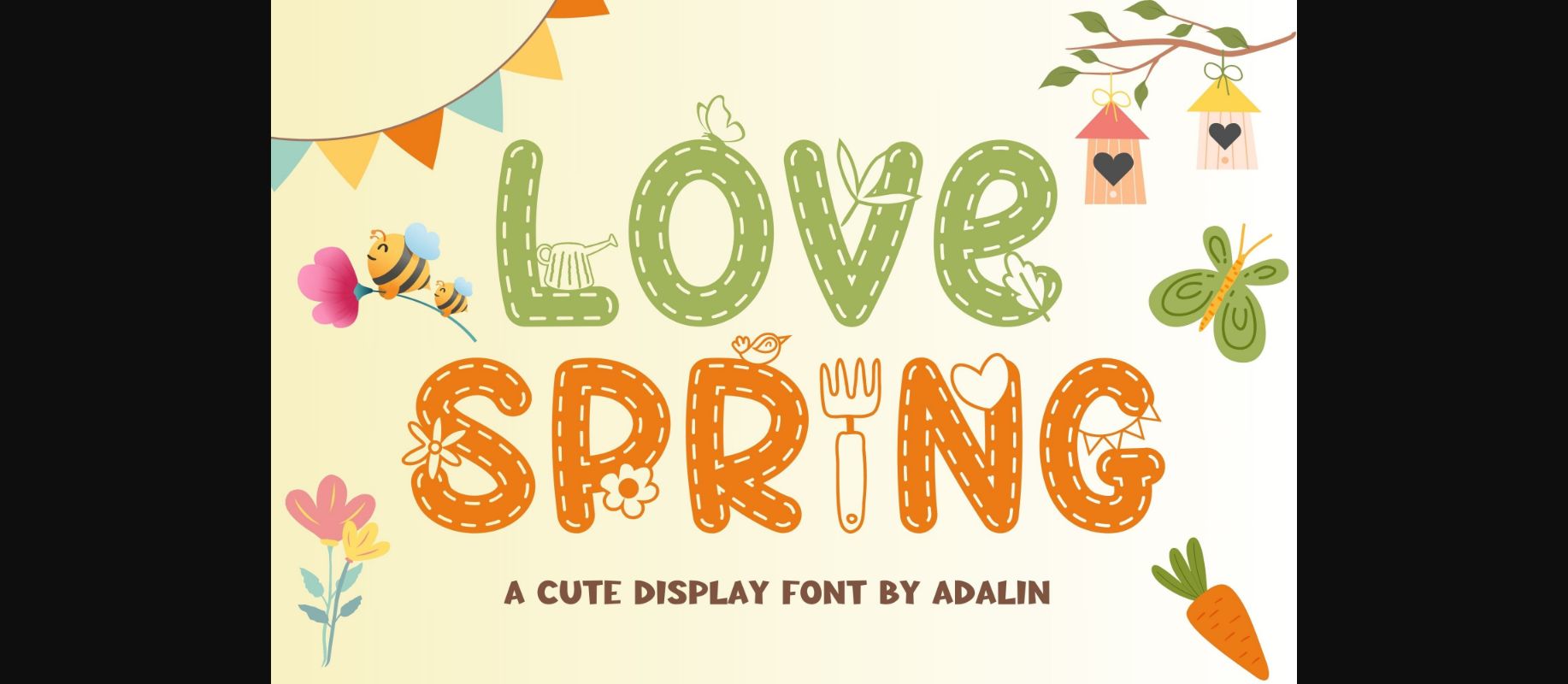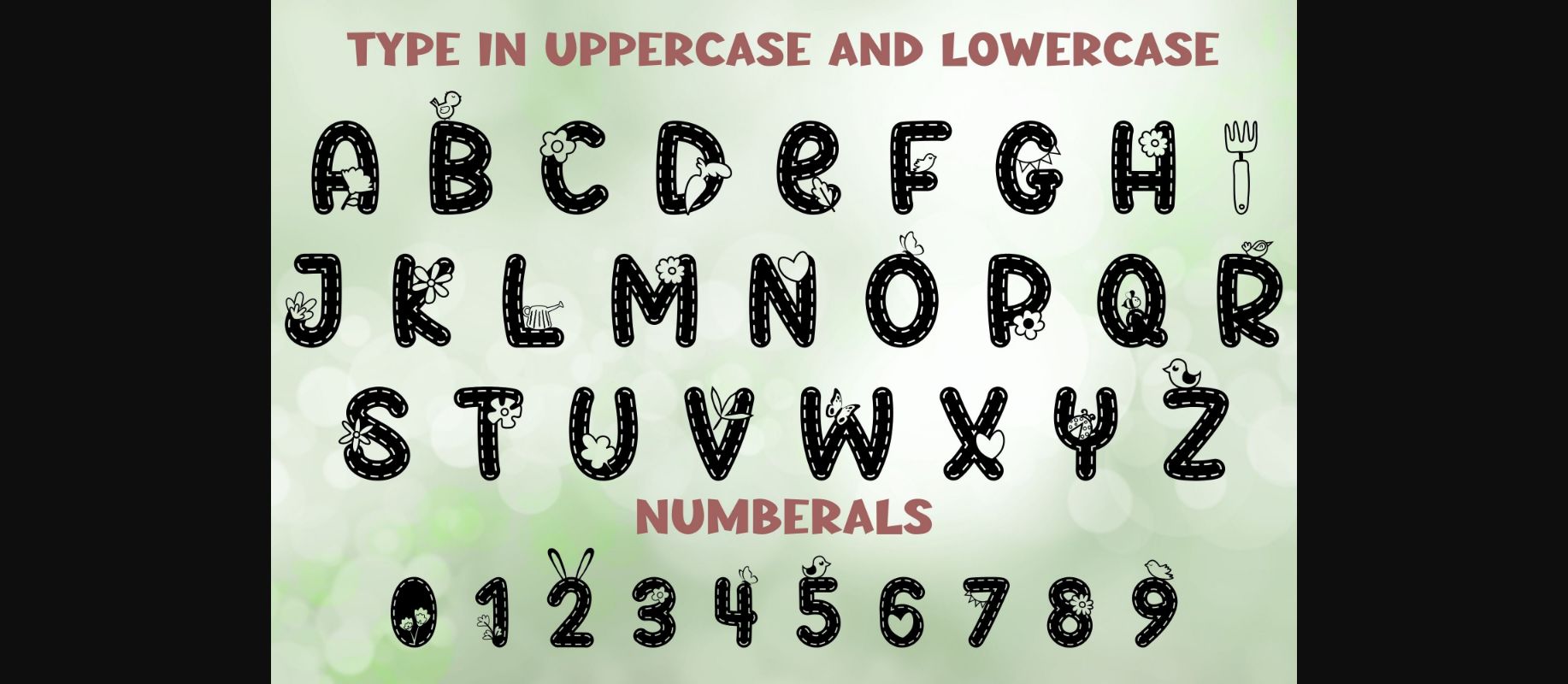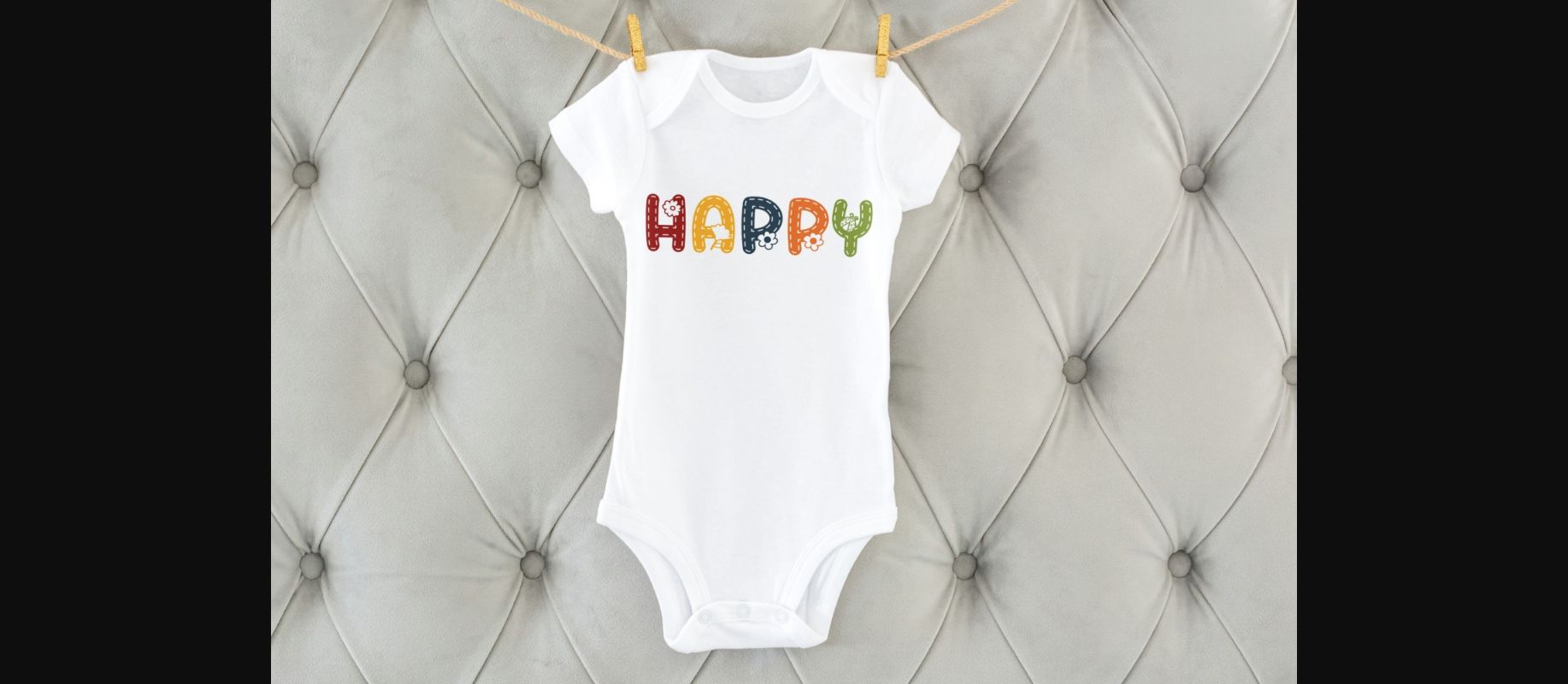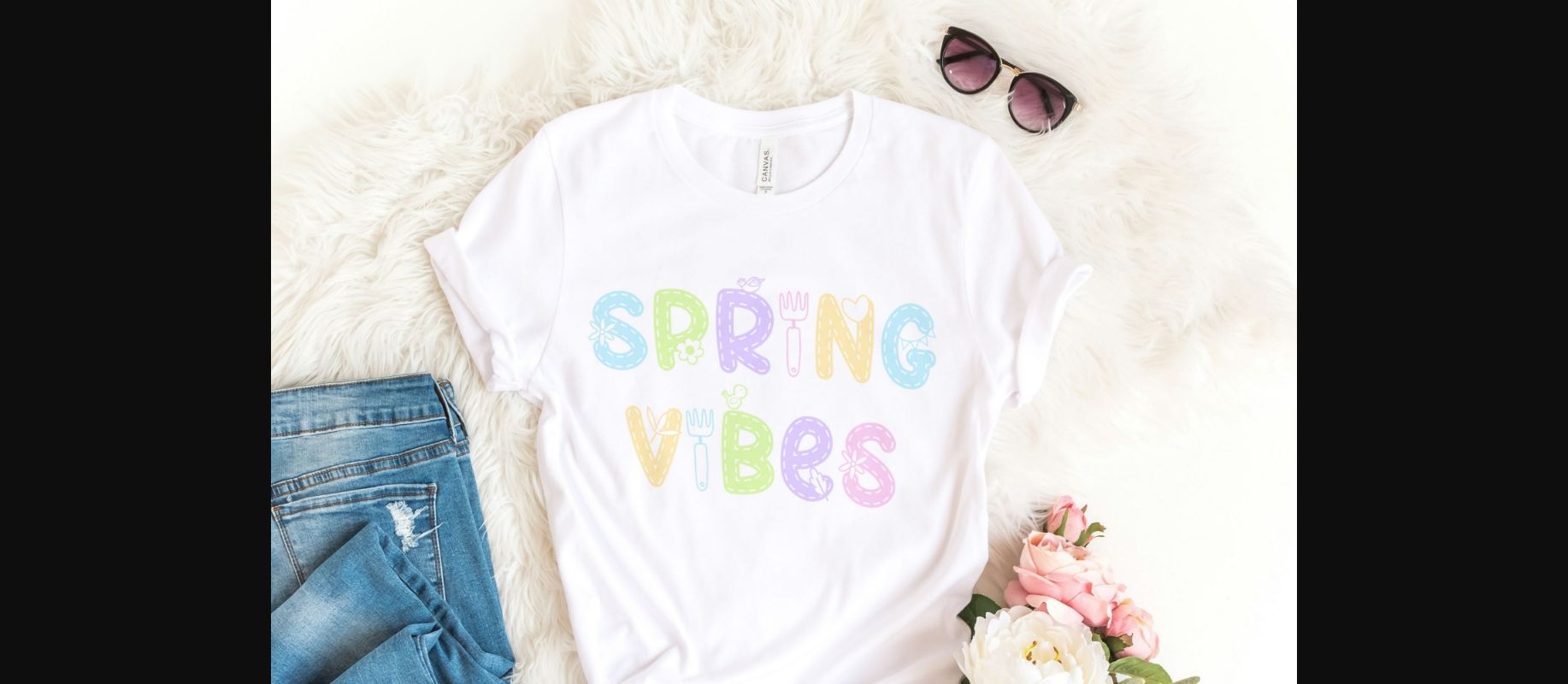
HomeDecorative FontsLove Spring Font Decorative Fonts Love Spring Font FacebookXPinterestWhatsApp 1 of 6 ... Love Spring Font Poster 2... Love Spring Font Poster 3... Love Spring Font Poster 4... Love Spring Font Poster 5... Love Spring Font Poster 6... About Love Spring Font Love Spring is a cute display font adorned with a spring feel. Add it to your festive, Spring ideas and enjoy the results! DOWNLOAD NOW People also explored Sweet Talker Font Oskar Font Cinderella Font Hannover Font Gabriel Font Honeydew Font Think Font Jalebi Signature Font 331 0 TagsLove Spring Font Previous articleCandy FontNext articleHello Sunflower Font LEAVE A REPLY Cancel reply Comment: Please enter your comment! Name:* Please enter your name here Email:* You have entered an incorrect email address! Please enter your email address here Website: Save my name, email, and website in this browser for the next time I comment. Personal Use Free Hollster Personal Use Free Read more about this font Awesome Snowflakes Font Personal Use Free Read more about this font Bashira Personal Use Free Read more about this font Oito Personal Use Free Read more about this font BLOG Fonts That Capture the Spirit of New York City New York City is more than just a place—it’s an experience, a rhythm, a visual language... Top 7 Google Fonts Alternatives for Faster and Privacy-Friendly Web Design (2025) To increase your work productivity, choose the most readable fonts. Best Fonts for T-Shirt Design – Top 2025 Picks